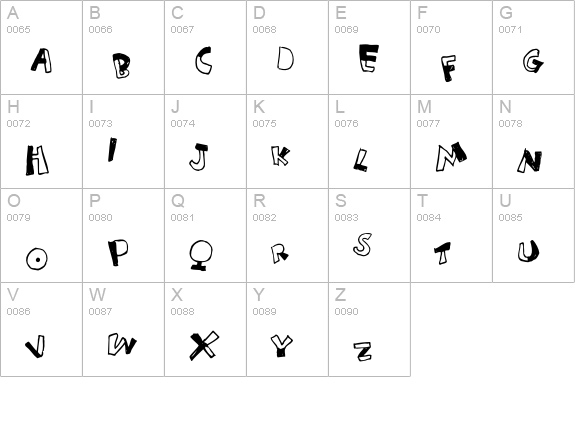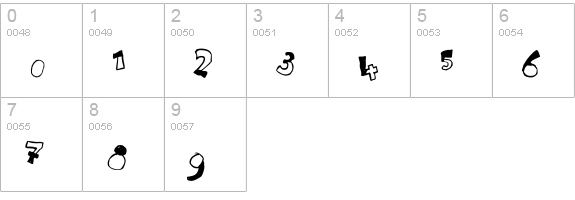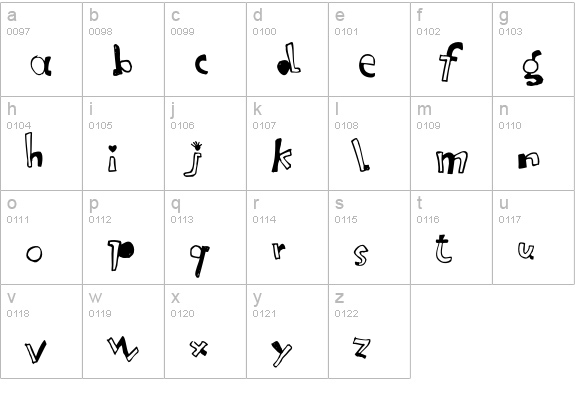
Introducing the captivating and utterly unique Letterine-Esagerate font! This extraordinary typeface is the perfect choice for those who seek to make a bold statement with their designs. With its exaggerated and exaggeratedly exaggerated letterforms, Letterine-Esagerate effortlessly commands attention and demands to be noticed. The sheer creativity and playfulness of this font is unparalleled, as each letter is meticulously crafted with intricate details that push the boundaries of typographic design. Its exaggerated strokes and dramatic curves create a visually stunning display that is both enticing and mesmerizing. Letterine-Esagerate is not just another font - it is a work of art. Its artistic flair and avant-garde style make it the ideal choice for projects that require a touch of extravagance and luxury. Whether used for headlines, logos, branding, or any other creative endeavor, this font will undoubtedly elevate your designs to new heights. And the best part? Letterine-Esagerate is available for free! That's right, this extraordinary font can be yours without spending a dime. Simply head over to FontsMarket.com and download this remarkable typeface to unleash your creativity and bring your designs to life. So why wait? Embrace the extraordinary and take your designs to the next level with Letterine-Esagerate. Download it for free at FontsMarket.com and let your imagination run wild with the limitless possibilities this font has to offer. Get ready to make a statement that will leave a lasting impression!